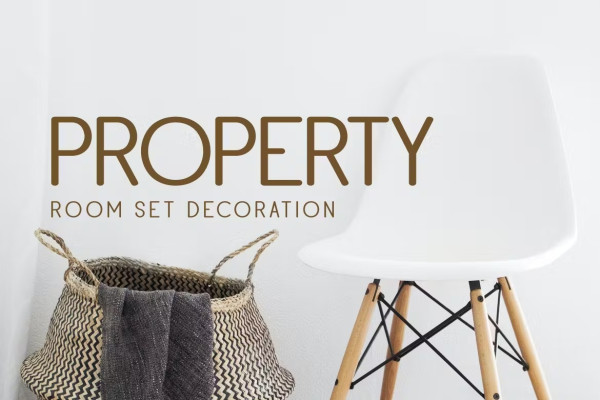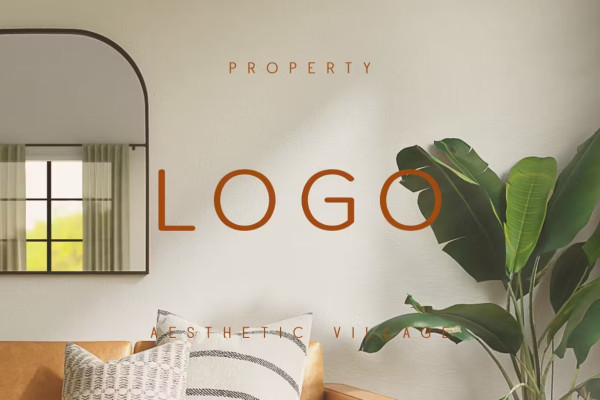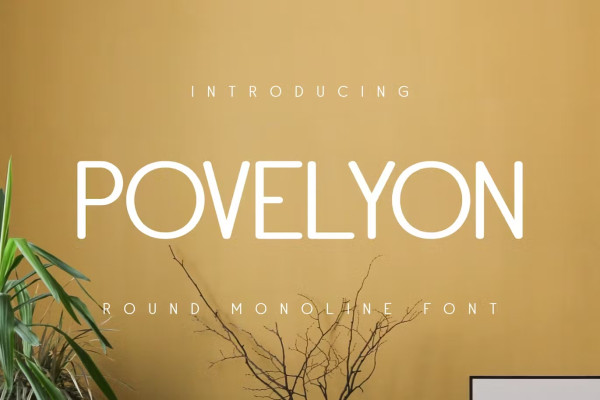
Povelyon Font
Povelyon Font – A beautiful rounded font with a Geometric Side on the letter “O” makes it more fluid. This font is specialized to describe home products, room interiors, properties and decorations in it.